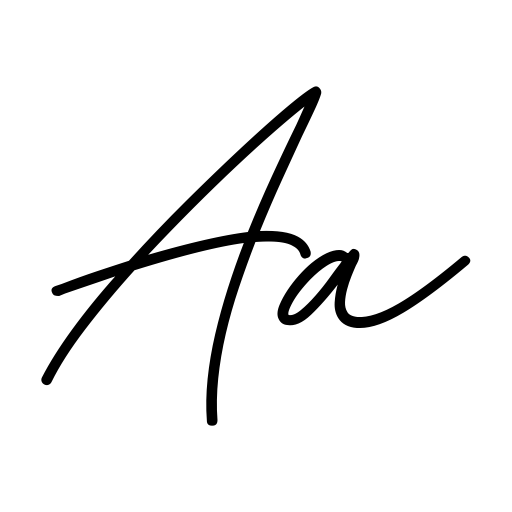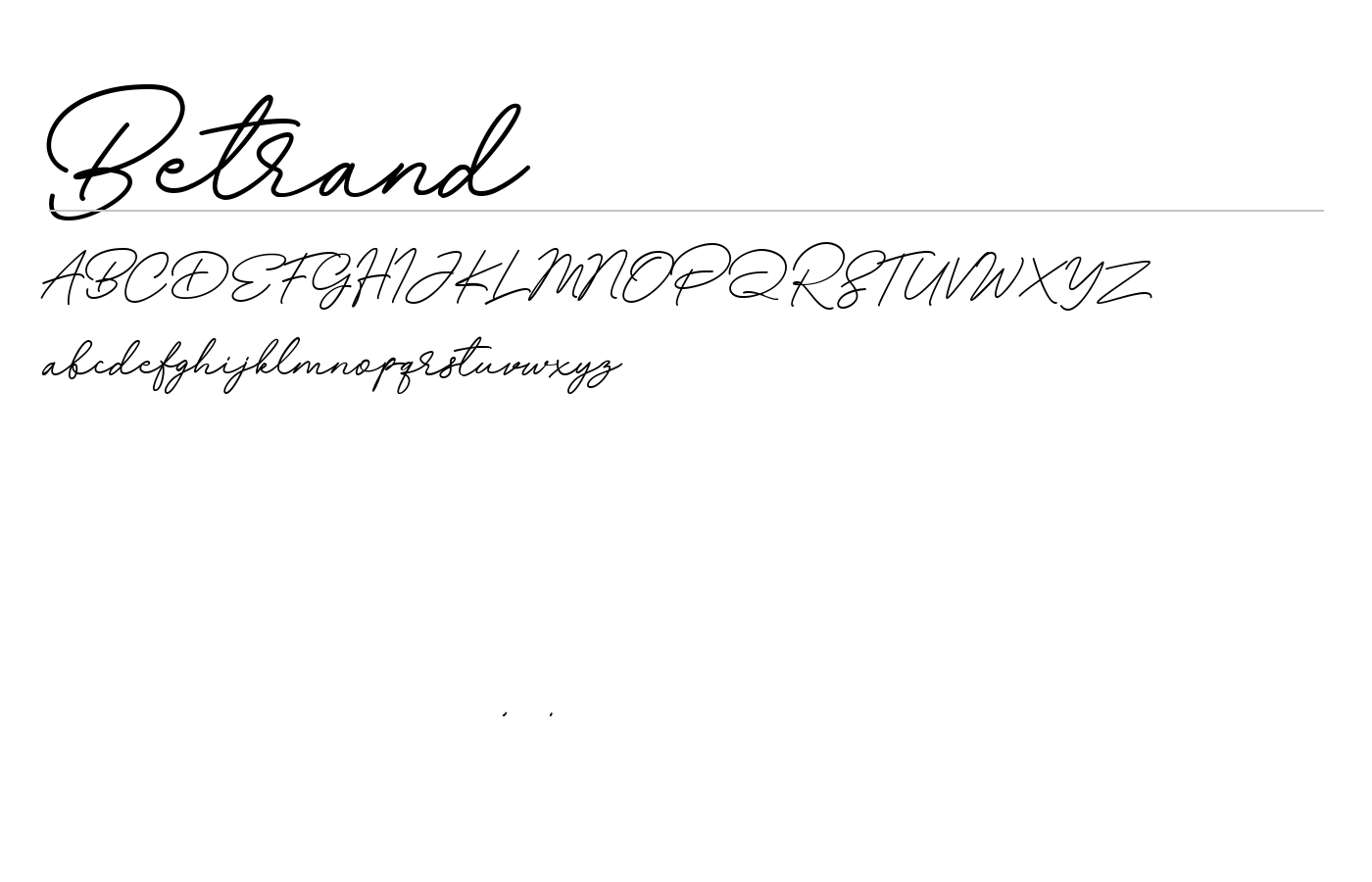
Betrand Font is a delicate and elegant script featuring thin, flowing strokes that give it a refined, handwritten feel. Its graceful curves and fluid connections make it perfect for invitations, branding, and stylish editorial projects where a touch of sophistication and personal warmth is desired. This font works well for designs seeking an airy, artistic, and intimate mood.
Betrand Font
About Betrand Font
| Font family | Betrand Font |
| Designer | Iqbal Pauji |